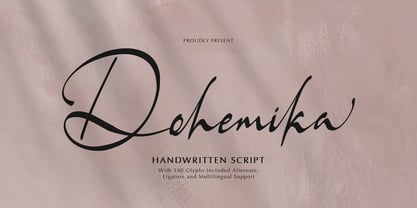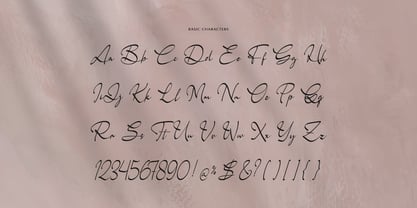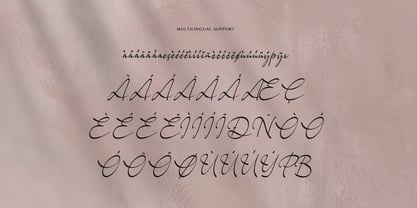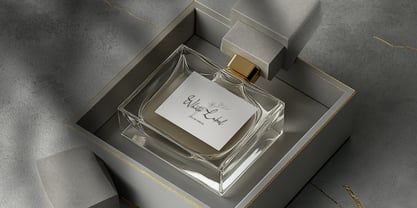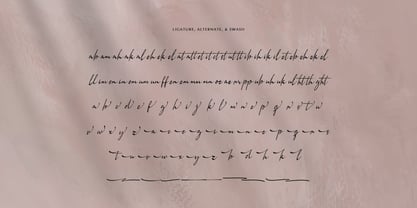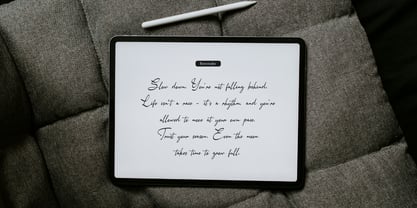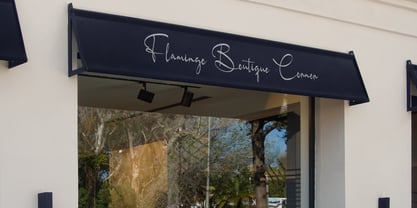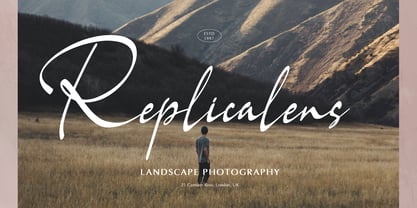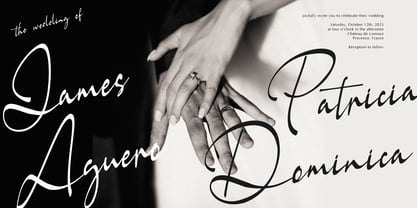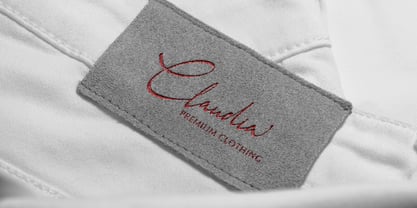
Dohemika
Dohemika | Handwritten Script, from Gracetypestudio, suitable for any projects such as: logos, branding projects, homeware designs, product packaging, mugs, quotes, posters, shopping bags, t-shirts, book covers, name card, invitation cards, greeting cards, label, photography, watermark, special events, and all your other lovely projects that need a Handwritten Script taste.
• Regular and Italic
• Alternate and Ligature